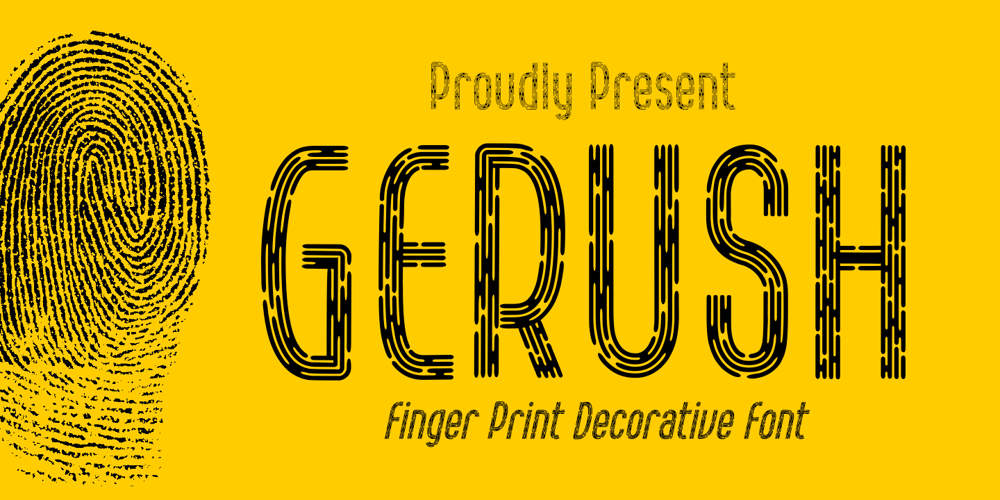
Gerush
Gerush font
Gerush Font Family was designed by Ahmad Zulfikar Ali and published by ZetDesign. Gerush contains 4 styles and family package options. Gerush is a font in the form of a fingerprint. This font is neatly crafted to present a formal yet memorable and unique feel. very suitable for brand identity and other uses. This font is made in a regular and light style with an italic style in each.